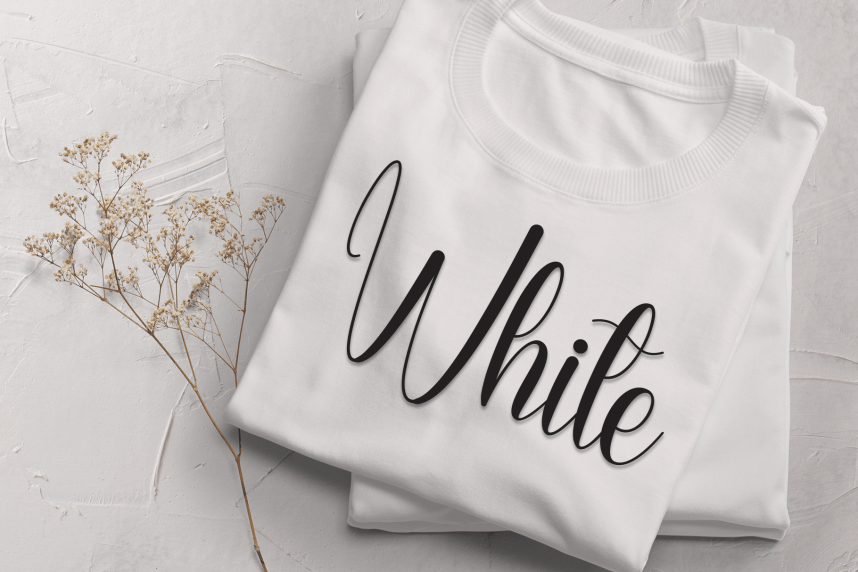
Sublimation Simple Handwritten Font
Sublimation Simple Handwritten Font is a sweet and friendly handwritten display font. Cute and fun, this font is ideal for writing wedding invitations, cards, or any other design that might need a playful touch!